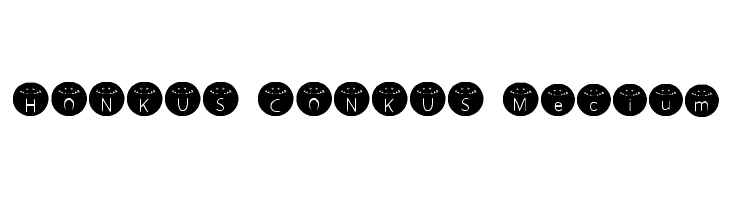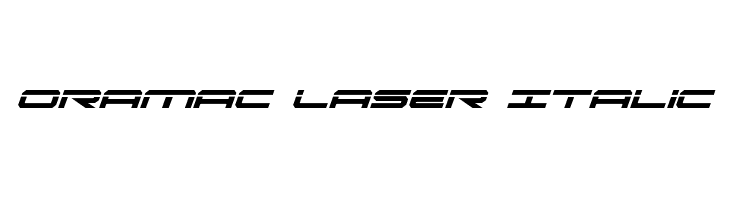
A bold, geometric font with a modern and industrial style.
A bold, distressed font with a grunge, urban aesthetic.
A bold, angular font with a jagged, edgy style.
A bold, expressive handwritten font with dynamic strokes.
A bold, angular font with a graffiti-inspired, dynamic style.
A bold, angular font with a modern, industrial style.
A bold, outlined font with a geometric and modern style.
A playful, handwritten font with rounded, slightly irregular letterforms.
A bold, italicized font with a shadow effect, ideal for modern, eye-catching designs.